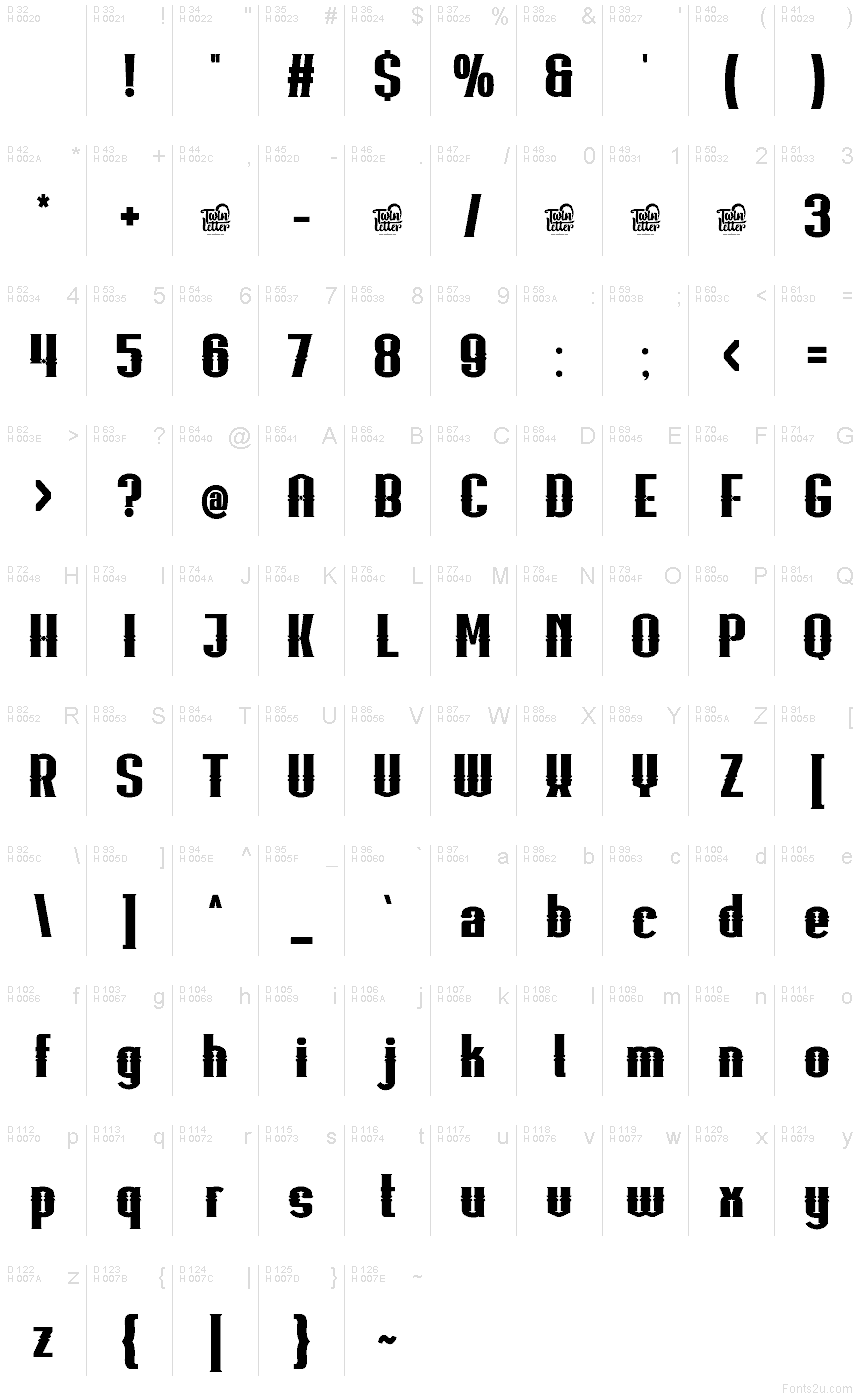
METUBtrial Regular
Metub font by Twinletter is a bold, condensed display font with a retro aesthetic. Victorian inspirations are evident through the type's ornate detailing which alongside the historic influence makes this modern take on traditional styles so sophisticated. With decorative elements and theatrical presence, Metub will surely sit brilliantly in any design project that features it, justifying the client's decision.
Use this free display typeface for vintage futurism themes such as classic horror movie cover designs or historical book covers. Bring revolution-oriented restaurant menus back to life or recreate old but interesting packaging labels for spirits and other spirits beverages. Combine its power with interior decoration options like lamp posts or door signs whether you go mini or mega in size!